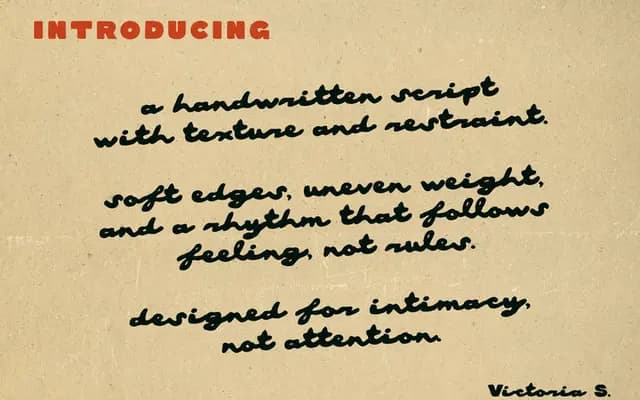
Late Cinema Handwritten Script
A handwritten script by Victoria Strukovskaya that pairs bold, confident uppercase letters with a flowing lowercase to balance structure with a personal, informal quality.
The uppercase characters carry the weight of a strong sans-serif, making them serviceable for headlines and logos, while the lowercase shifts into a natural handwritten rhythm that softens the overall feel. With 199 glyphs covering Latin European characters, diacritics, numbers, currency and mathematics, it covers practical range for branding and packaging work. Available in OTF and TTF under commercial licence, with web formats added at the extended tier.
Categorised as script due to its handwritten character throughout, with the designer noting a deliberate blend of sans-serif structure in the uppercase and flowing script in the lowercase.